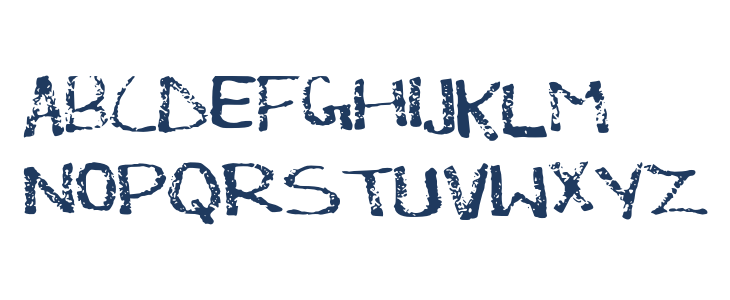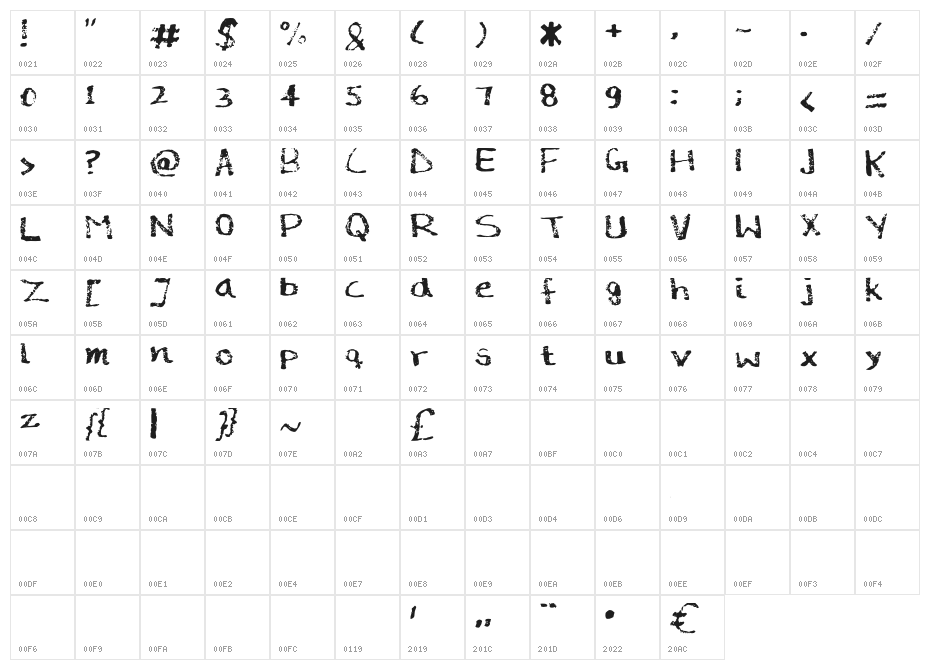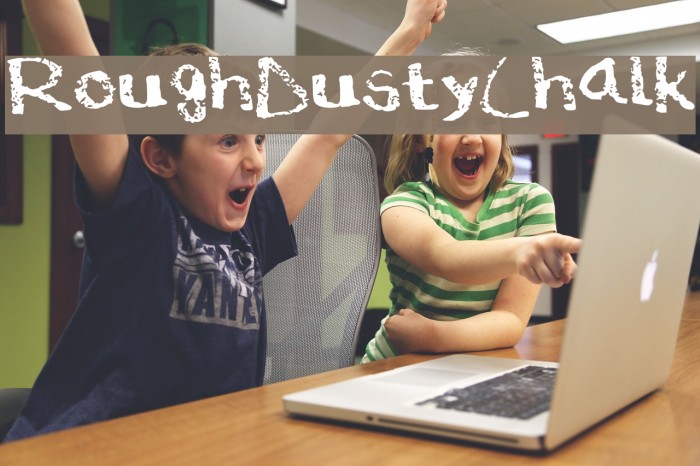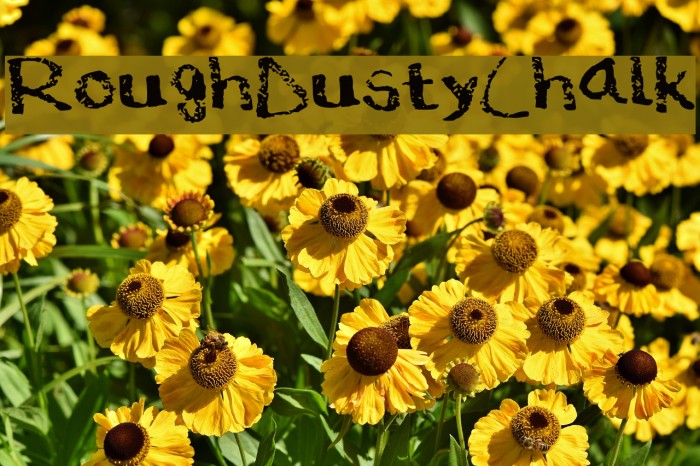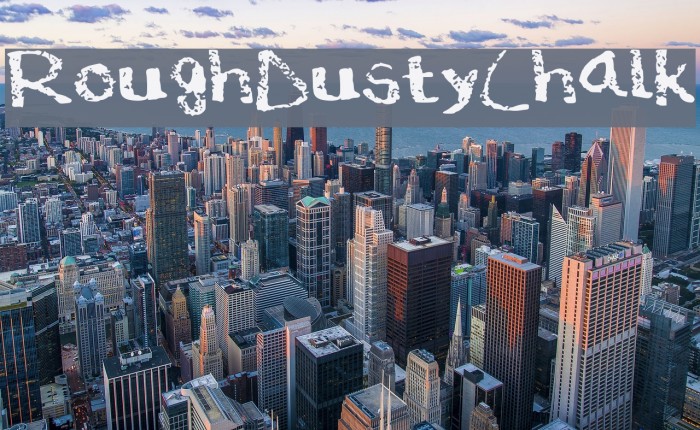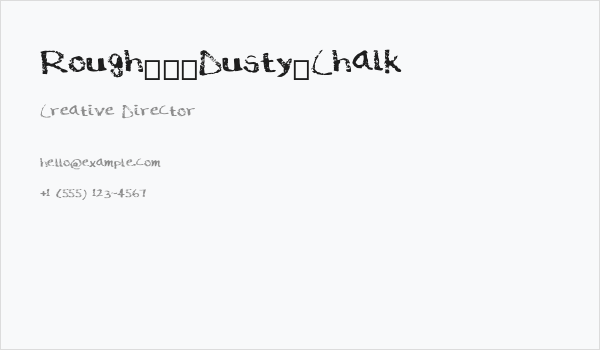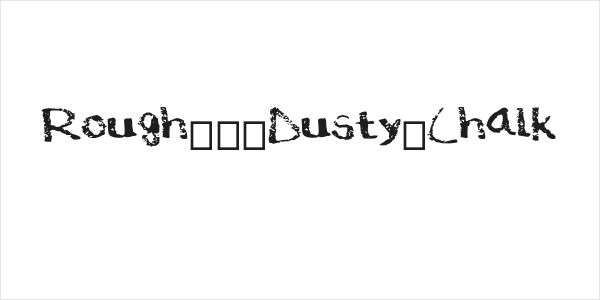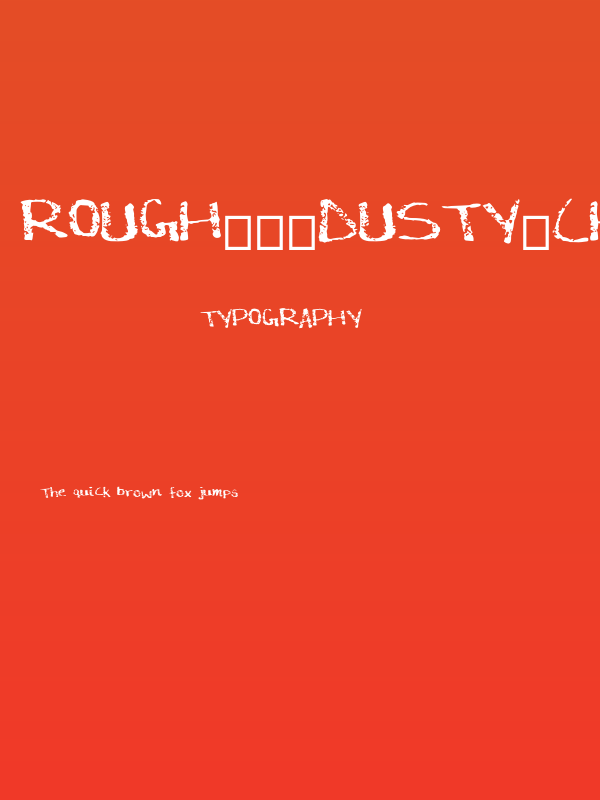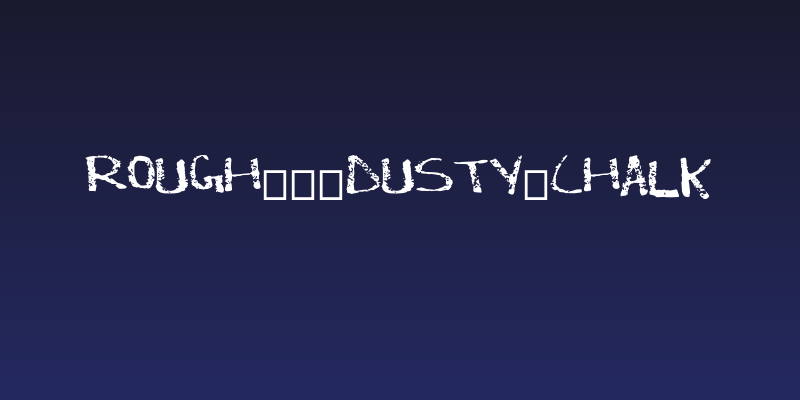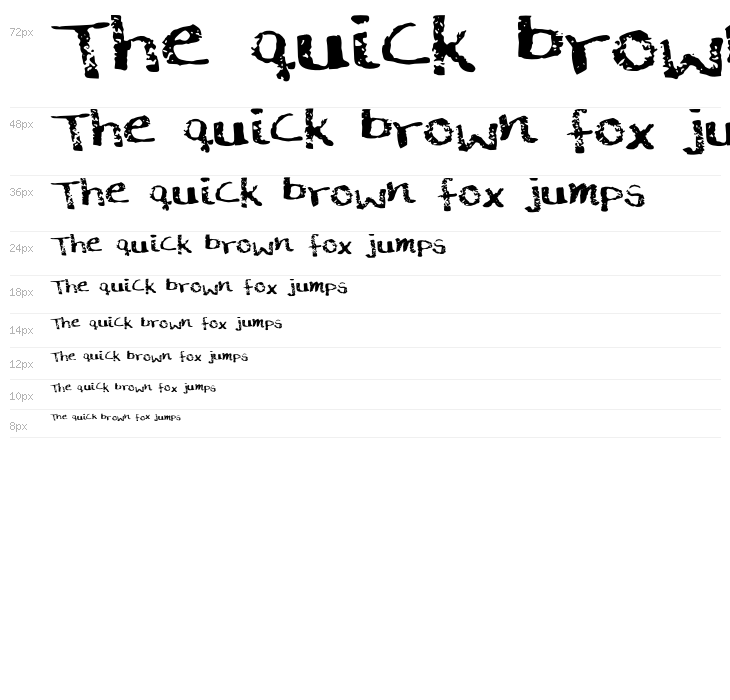
Rough___Dusty_Chalk Font
Rough___Dusty_Chalk Description
This font features a rugged, textured appearance reminiscent of chalk or dust, giving it a raw and organic feel. The characters are irregular and distressed, with uneven edges and a hand-drawn quality that adds to its unique charm. The uppercase and lowercase letters maintain a consistent style, while the numbers and special characters follow suit with the same rough texture. This font's distinctive look makes it stand out, offering a bold statement in any design.
| Proposed Projects | Ideal for projects requiring a rustic or handmade aesthetic, such as posters, album covers, or craft product packaging. |